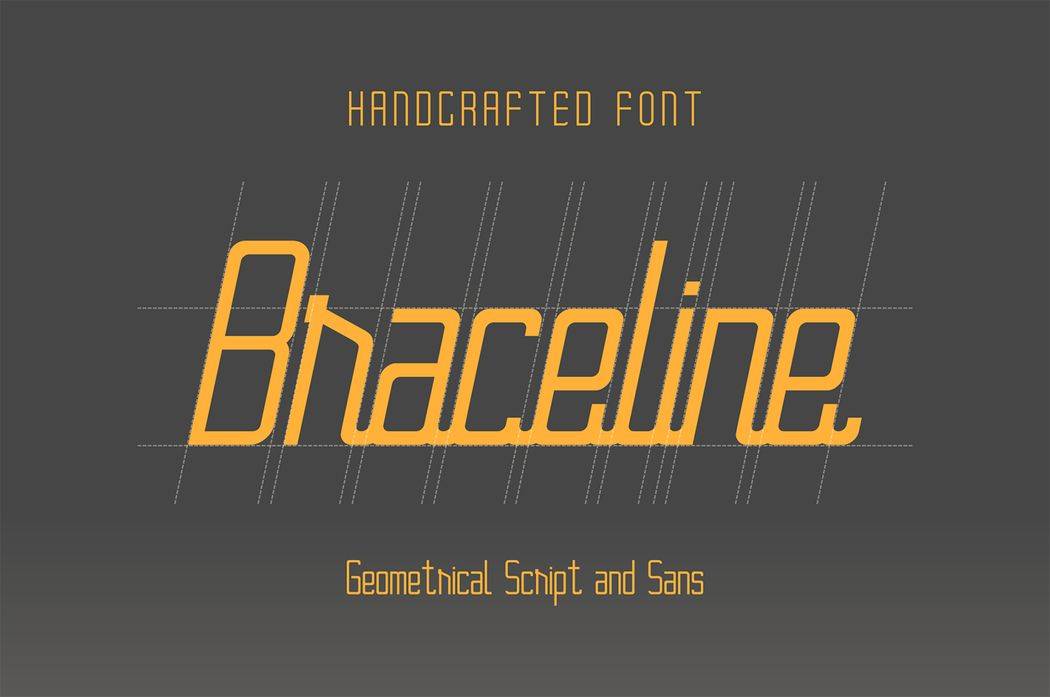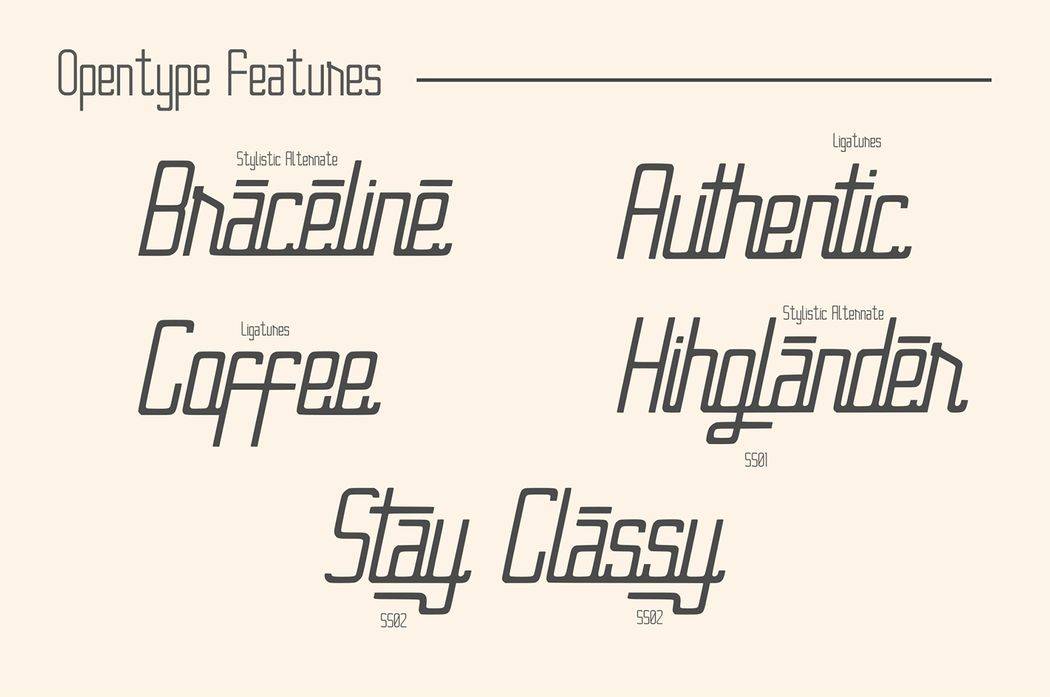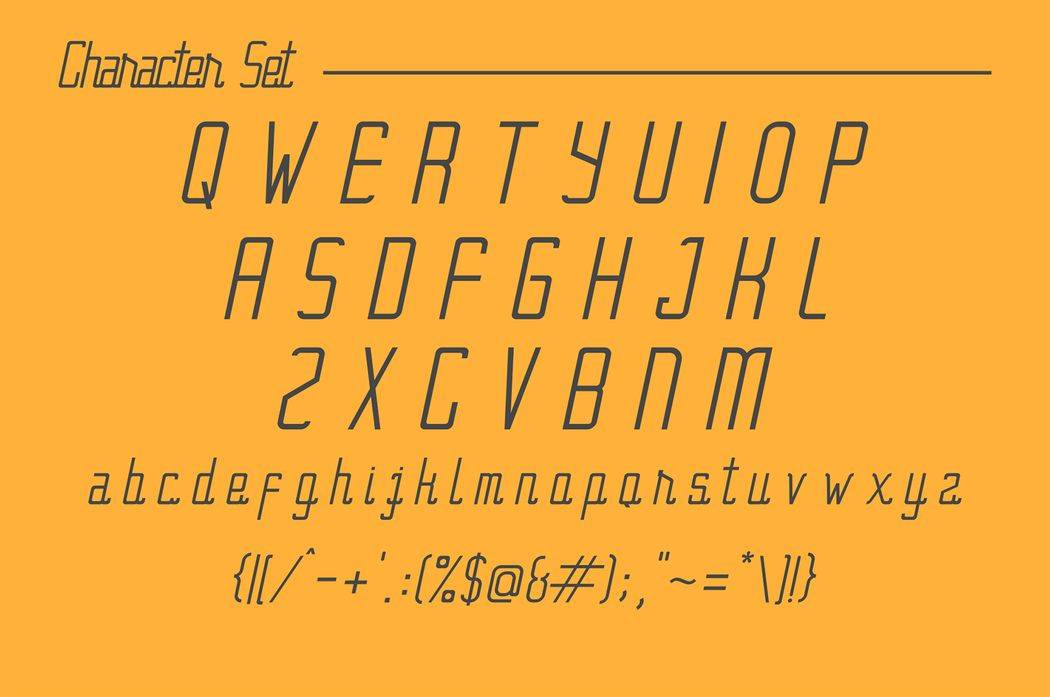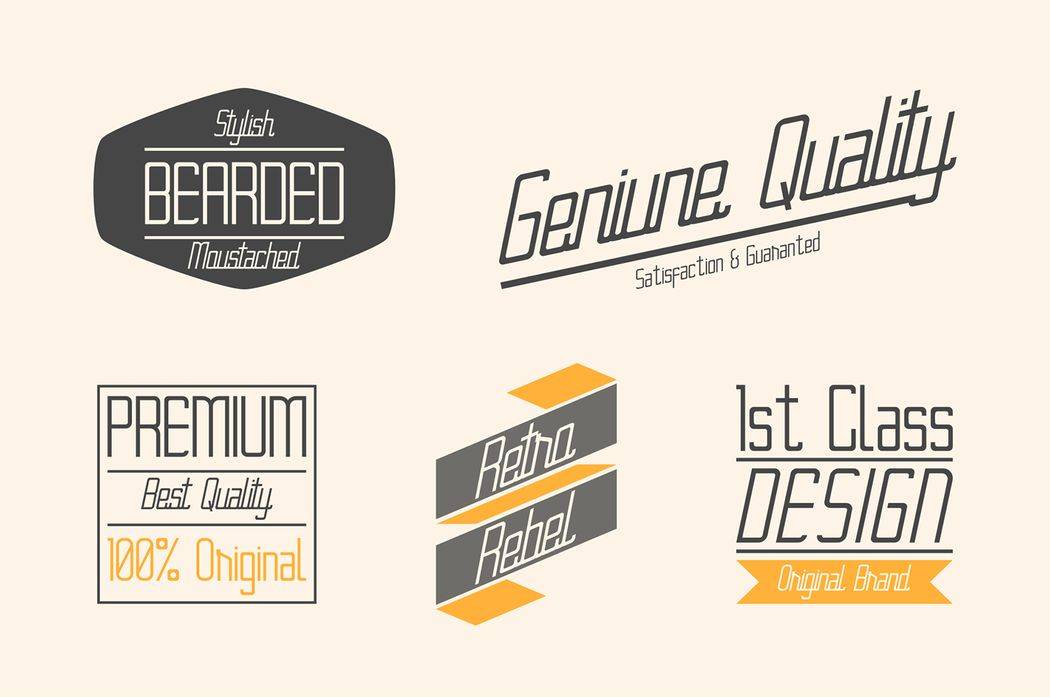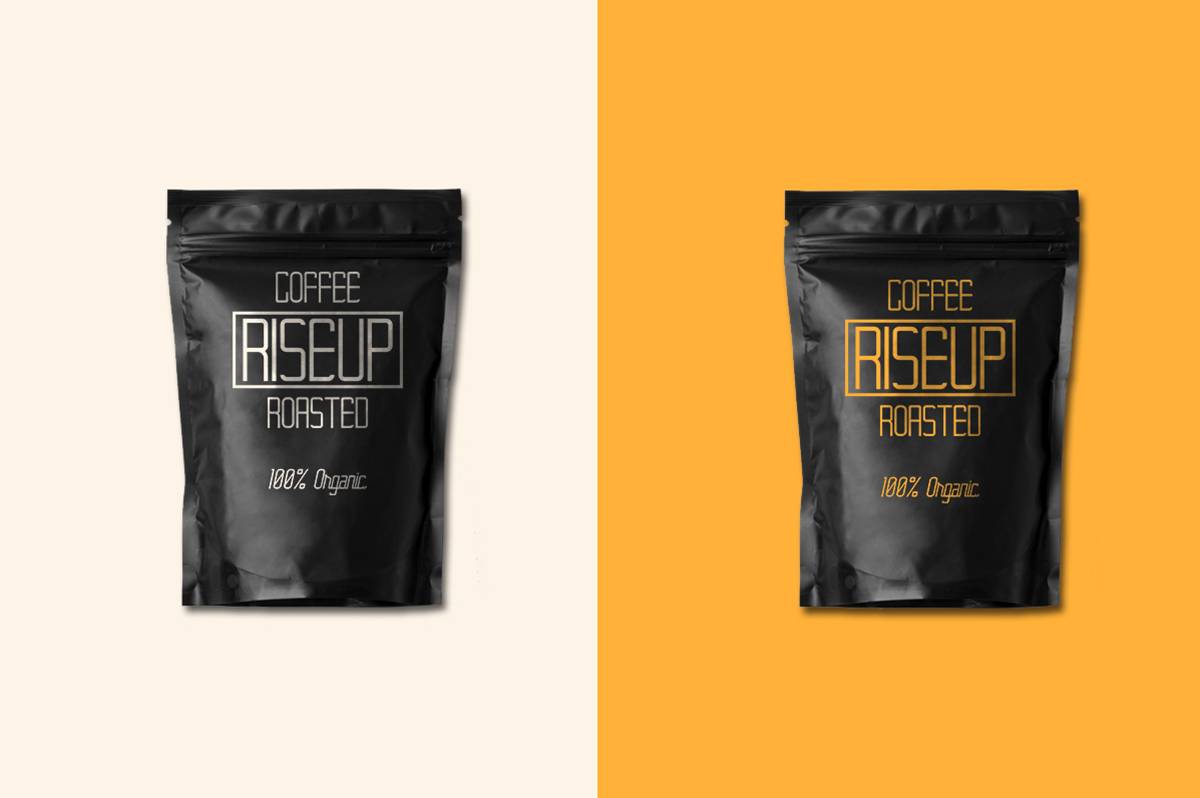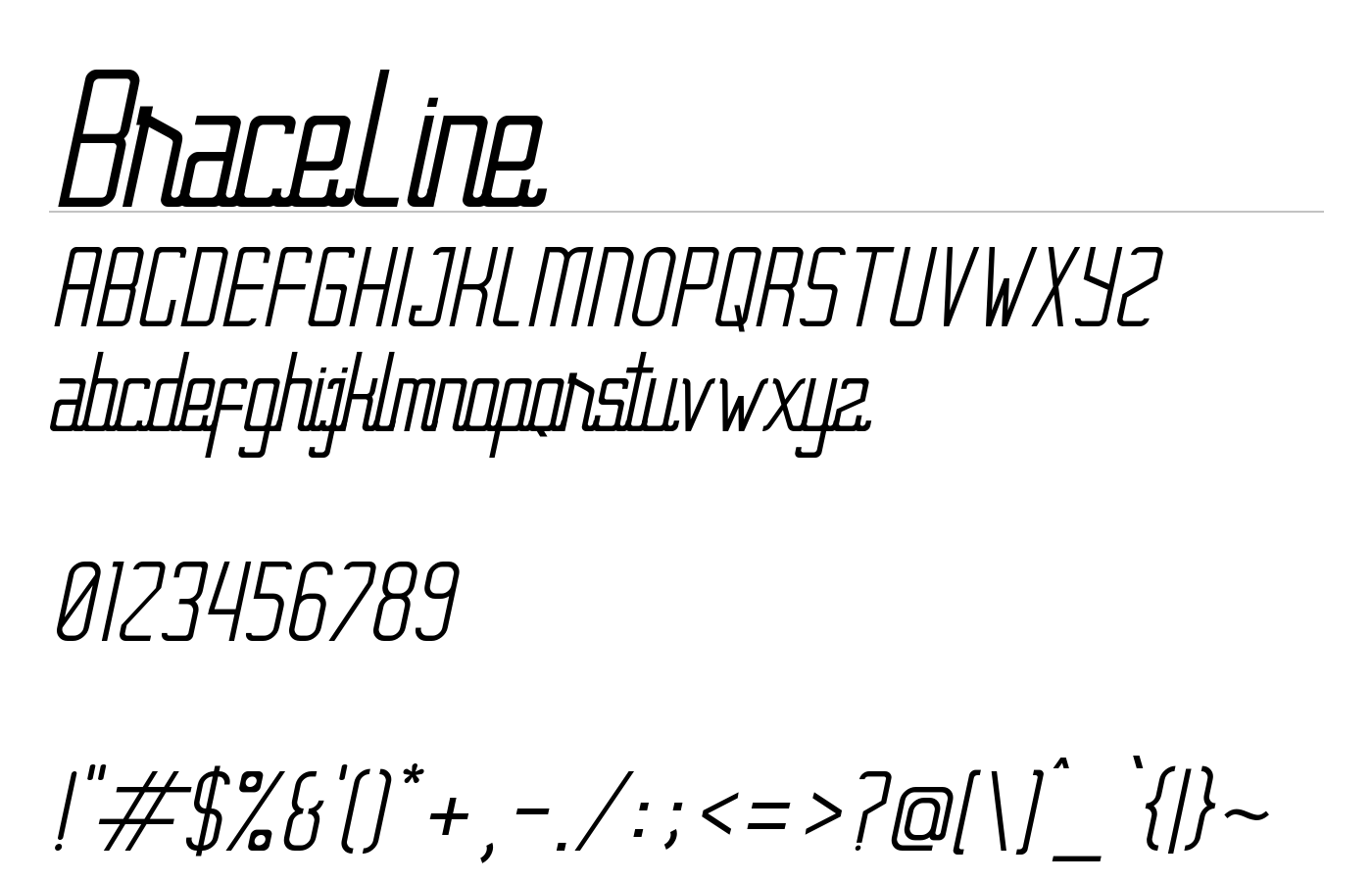
Braceline is a sleek, condensed sans serif font characterized by its narrow, tall letterforms and smooth, geometric strokes with a slight italic slant. Its modern, streamlined design conveys a dynamic and sophisticated feel, making it ideal for branding, headlines, and stylish editorial use where a minimalist yet distinctive look is desired. This font works well in contexts that seek a contemporary, elegant vibe without sacrificing clarity or personality.
Braceline Font
About Braceline Font
| Font family | Braceline Font |
| Designer | Rivo Dwi Adriansyah |